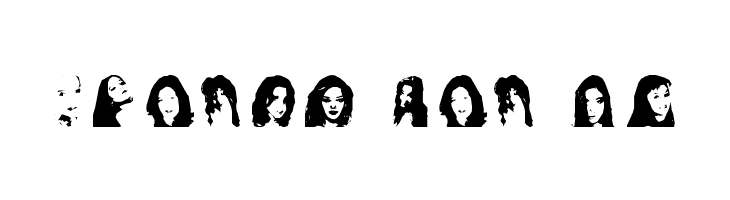
A bold, geometric font with strong circular and triangular elements.
A pictorial decorative font featuring stylized female portraits.
A playful, heart-themed decorative dingbat set.
A tall, hand-drawn font with a whimsical and casual style.
A sleek, modern font with geometric and art deco influences.
A bold, geometric font with art deco influences and clean lines.
A bold, italicized font with dynamic and flowing letterforms.
A sleek, modern italic font with clean lines and dynamic elegance.